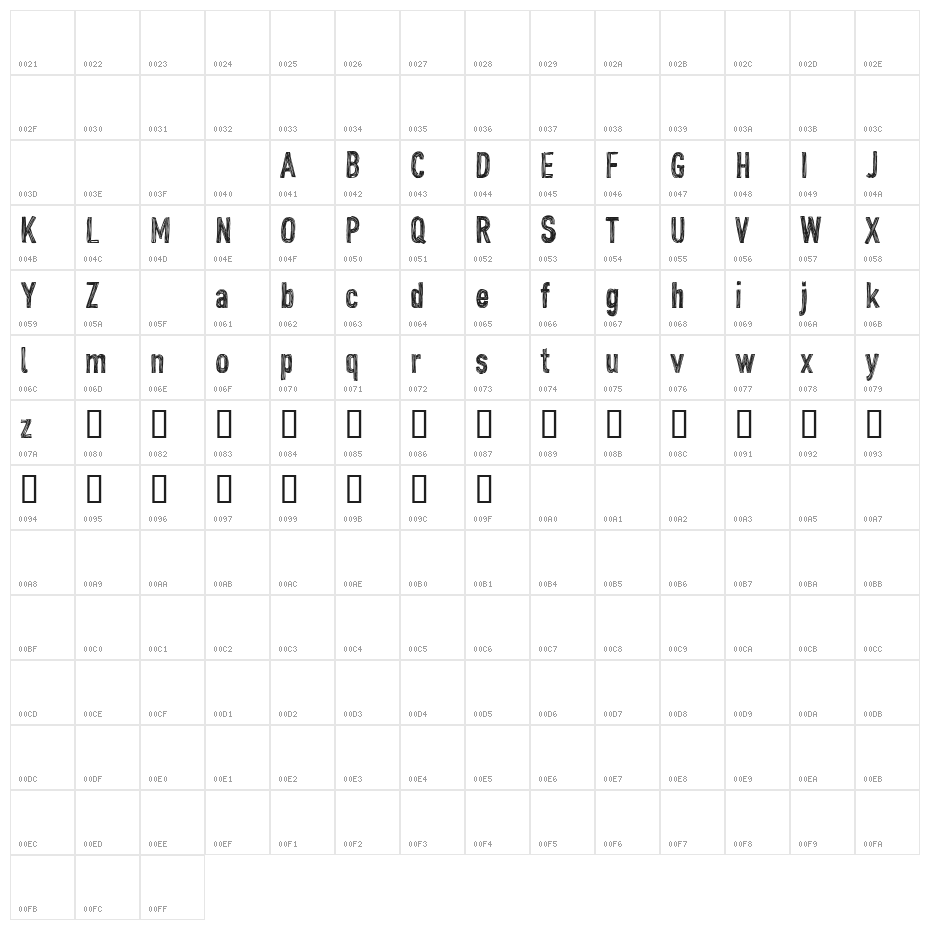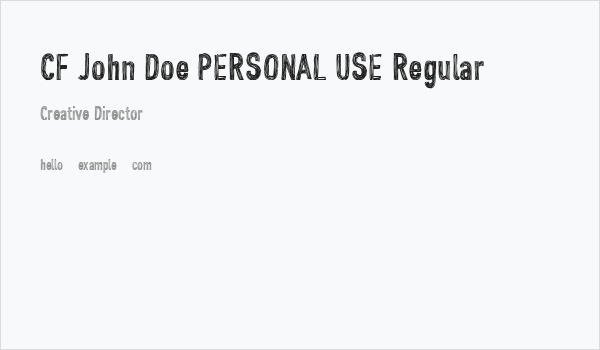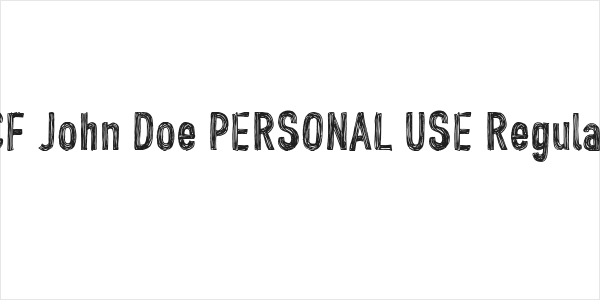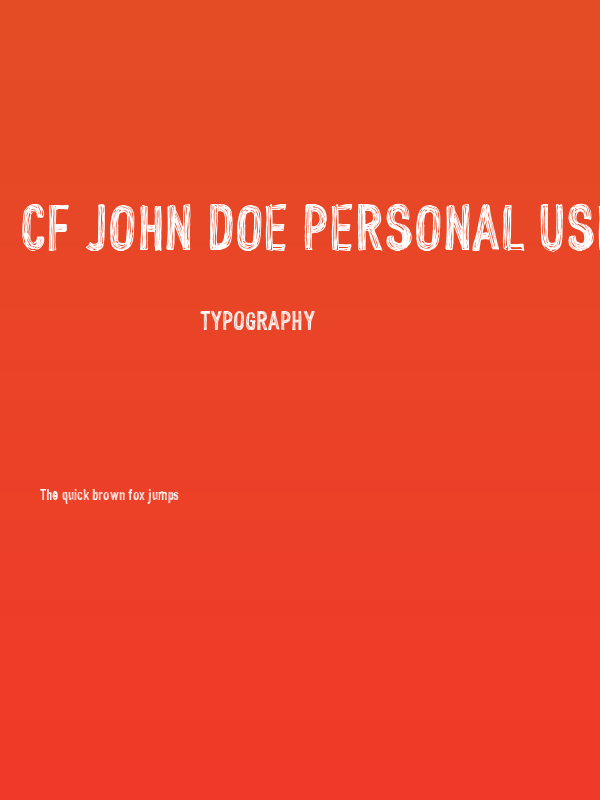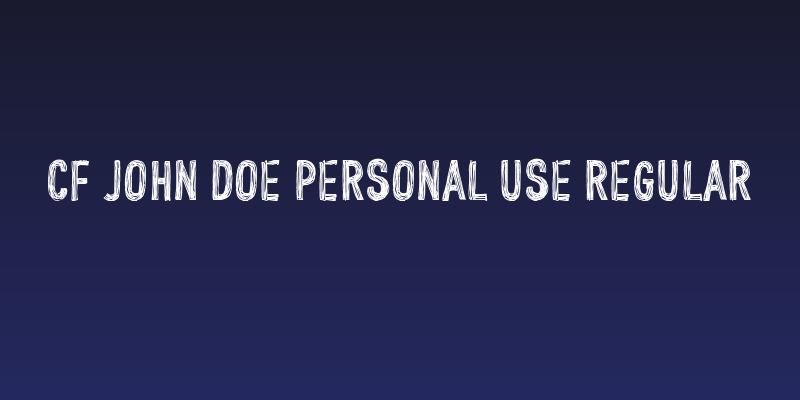
CF John Doe PERSONAL USE Regular Font
CF John Doe PERSONAL USE Regular Description
This font features a bold, hand-drawn style with a textured, sketch-like appearance. Each character is crafted with irregular strokes, giving it a unique, artistic feel. The uppercase and lowercase letters maintain consistent proportions, while the numbers and special characters follow the same design ethos. The font's playful and informal nature makes it ideal for creative projects that require a personal touch. Its distinct style stands out, making it suitable for eye-catching designs.
Proposed ProjectsIdeal for posters, greeting cards, children's books, and creative branding projects.